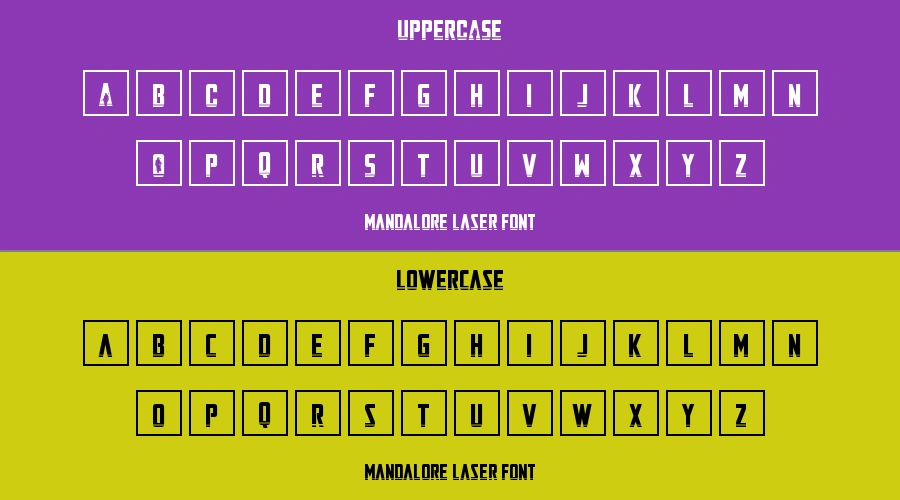
About Mandalore Laser Font
Mandalore Laser Font represents a sophisticated approach to type design, balancing harmonic curves with optical harmony. Perfect for film titles, this font family showcases impressive functionality and enduring appeal throughout its character set. Designers appreciate its versatility and reliability.
Designers will appreciate nuanced touches including ink traps and tabular figures, adding sophistication to any project. These features become apparent in exhibition titles, where scalability matters most. The careful treatment of aperture size and standards alignment ensures optimal performance.